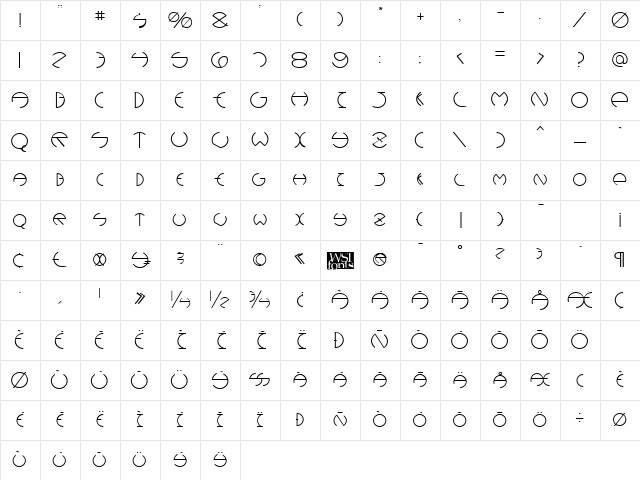
Complete Debevic Deco Regular glyph index. Displaying only characters natively supported by Debevic Deco Regular font.
Debevic Deco is a composed and adaptable typeface that performs quietly and consistently across a wide range of design contexts.